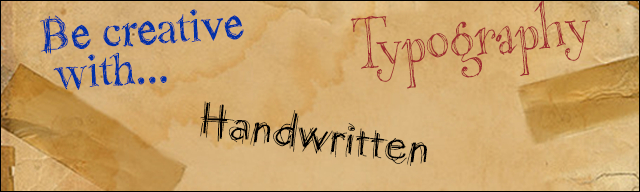
Fonts in general are essential as they are always present in just about every graphic and web design today. Fonts, together with the colors, can dictate how the theme and vibe will be.
Designers often use ’handwritten to give designs a human touch. Fonts with handwritten letters work wonders in situations where the designer want to simulate that something has been hand-written on top of the design.
Having a great collection of various types of fonts, such as handwriting fonts, is essential as you are going to need them in just about every graphic and web design project you work on. The more fonts or font round ups you have links to the easier it will be to find a perfect match for a specific design style.